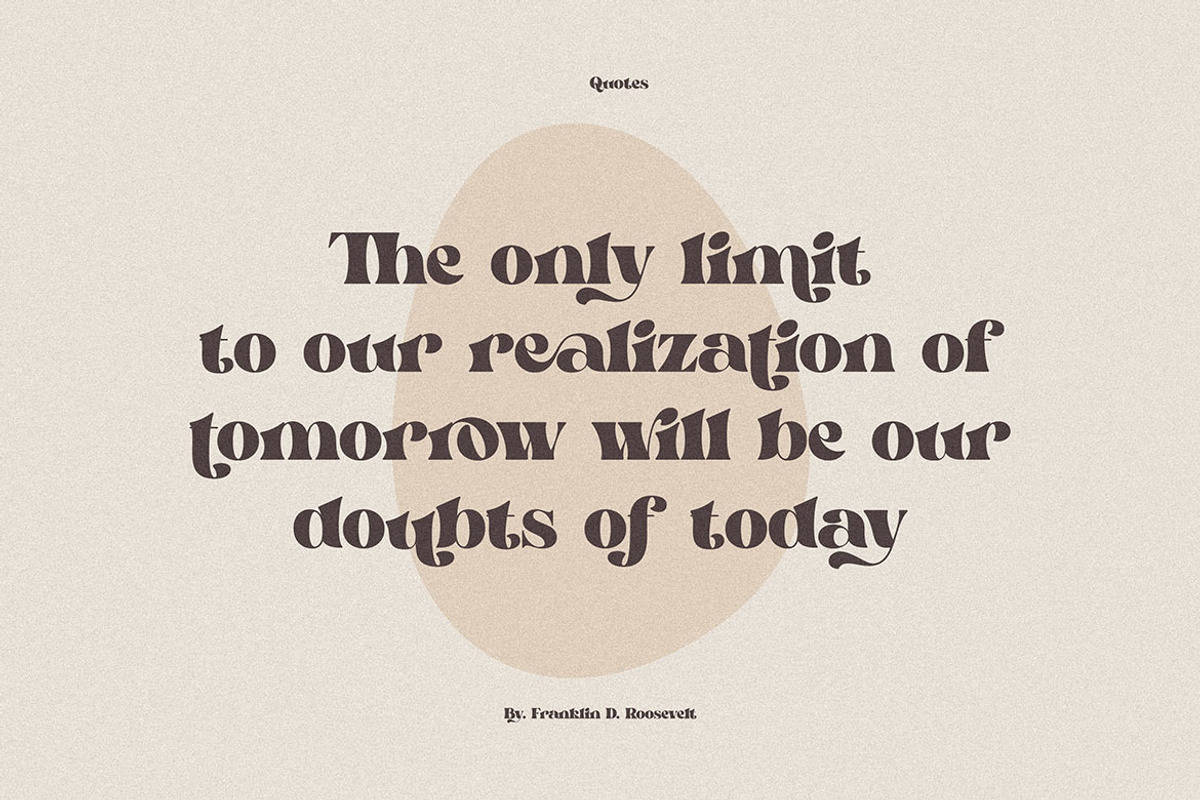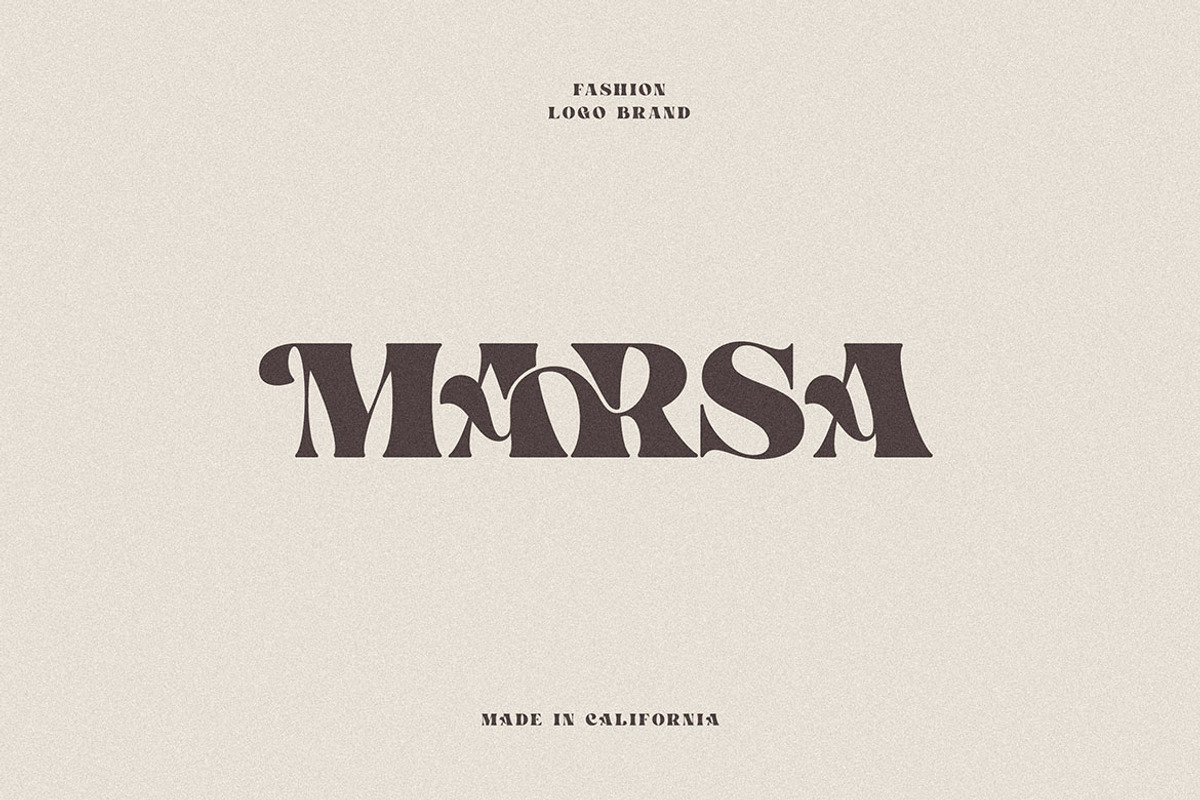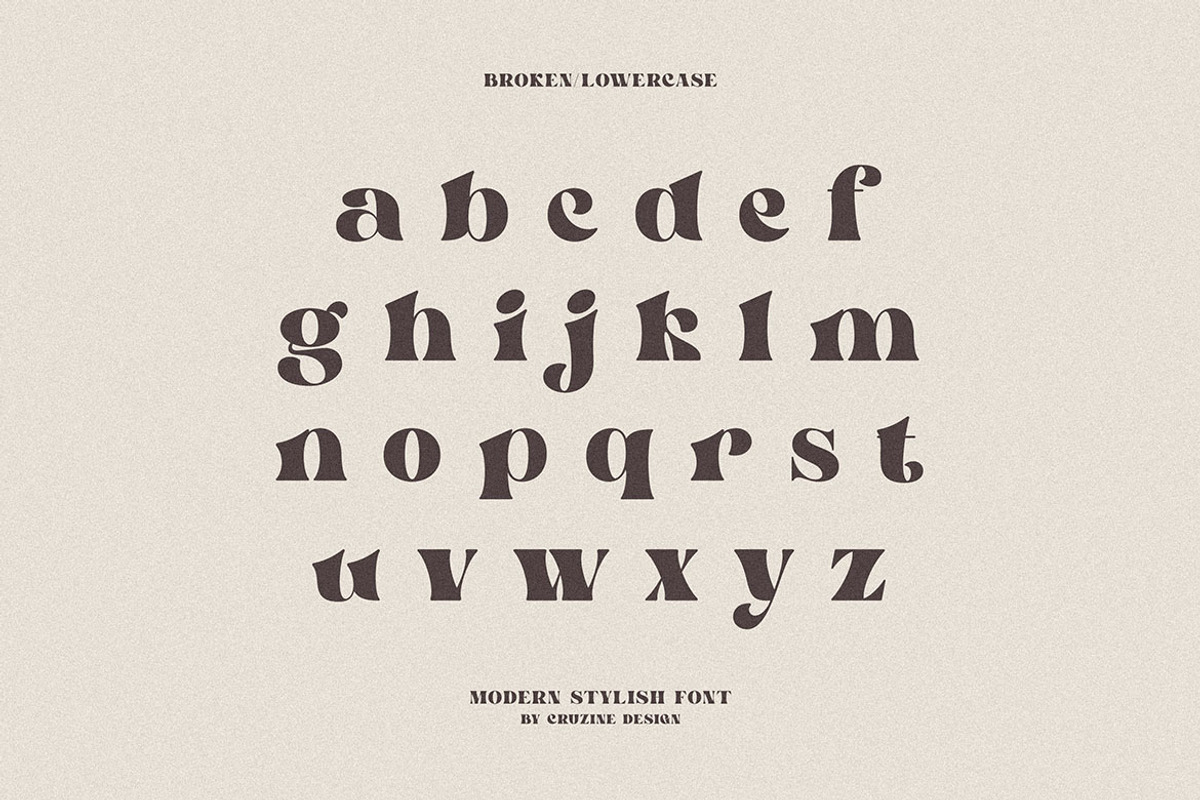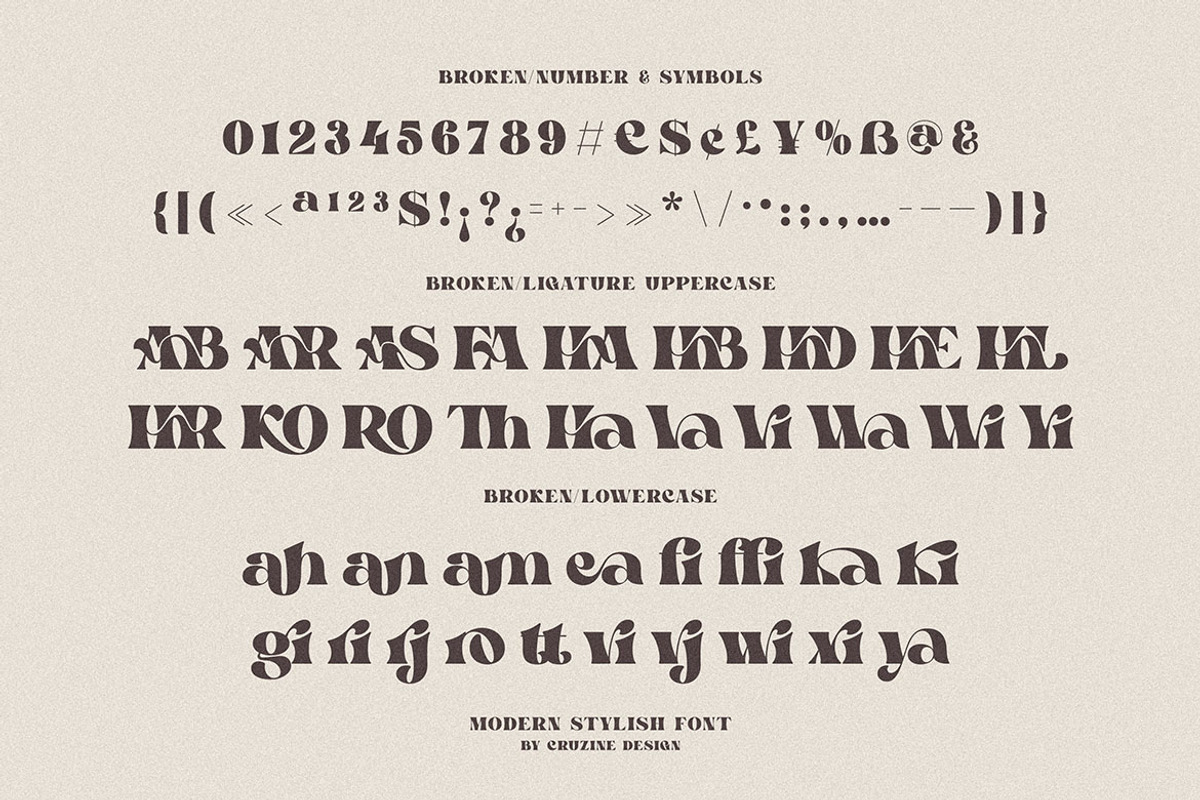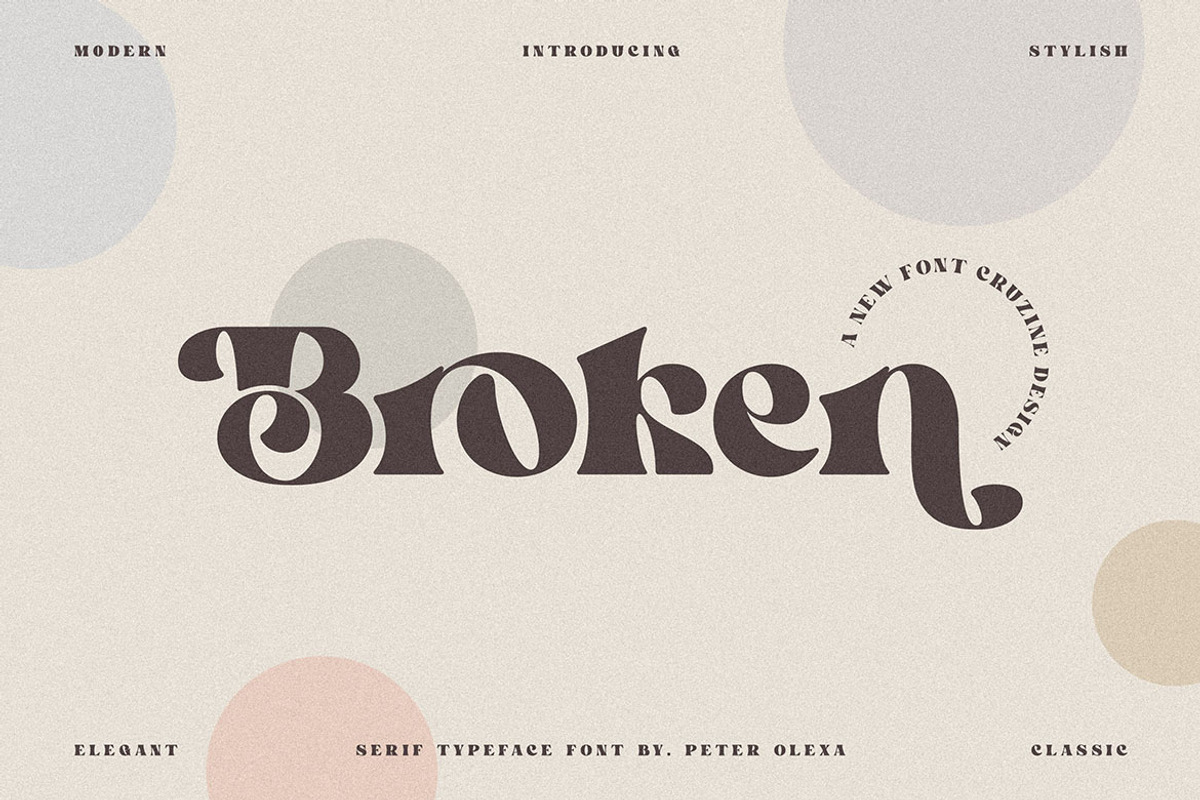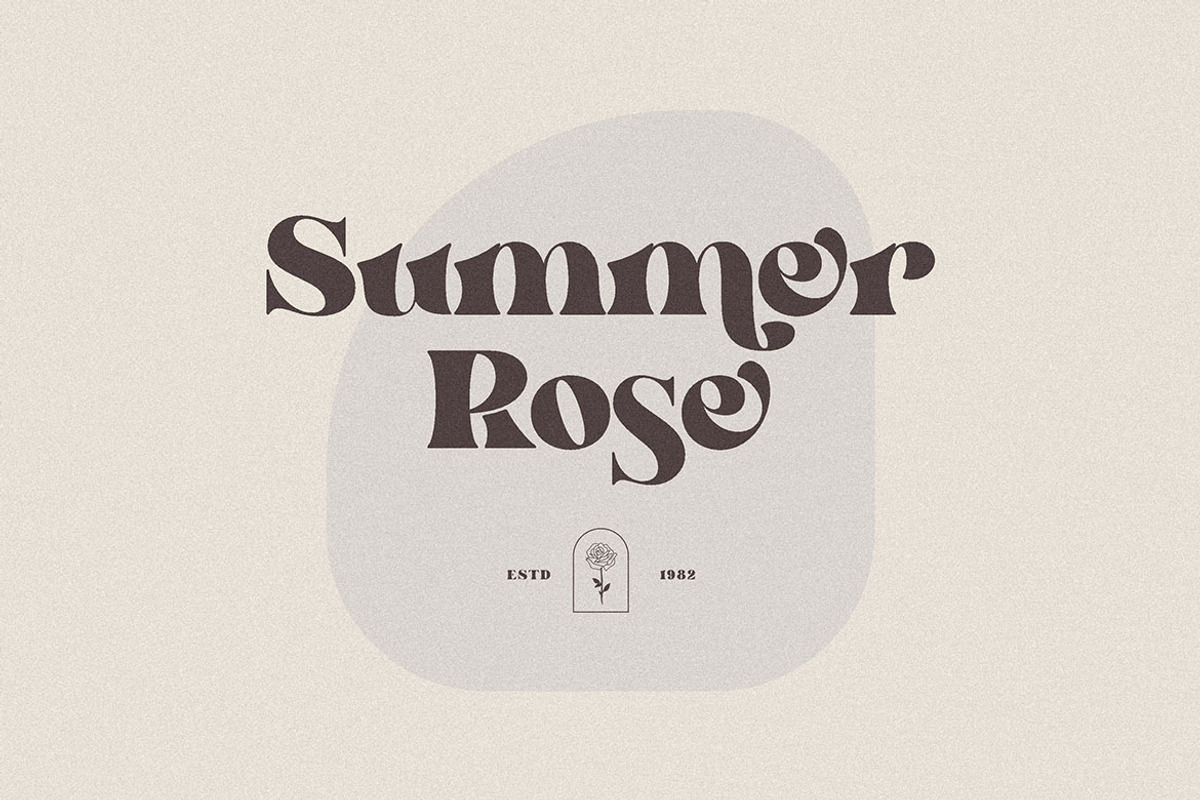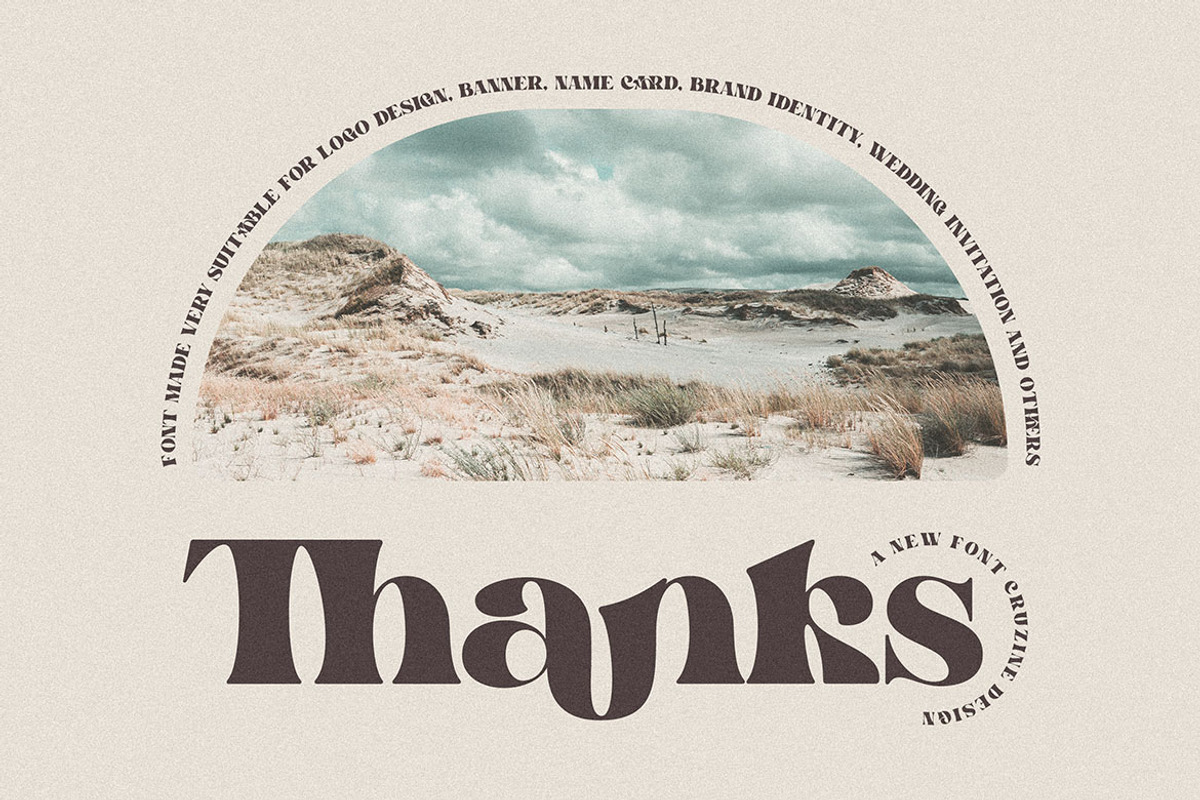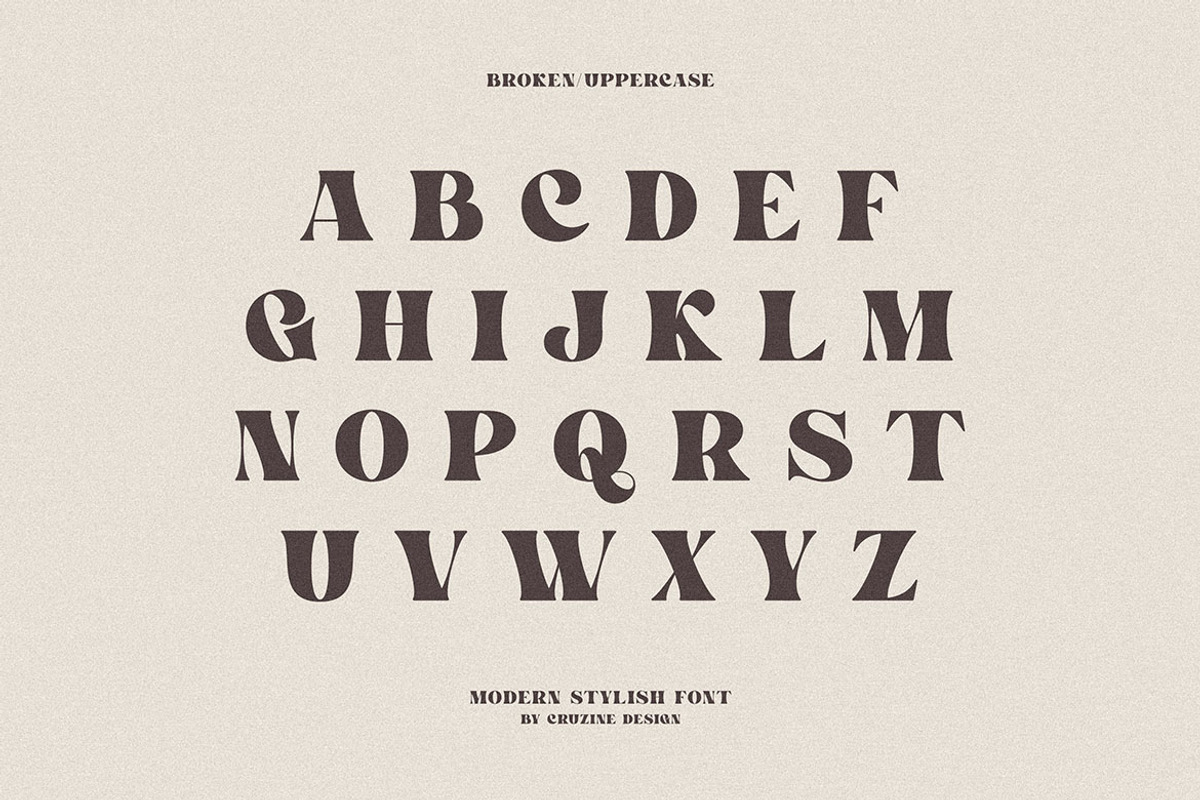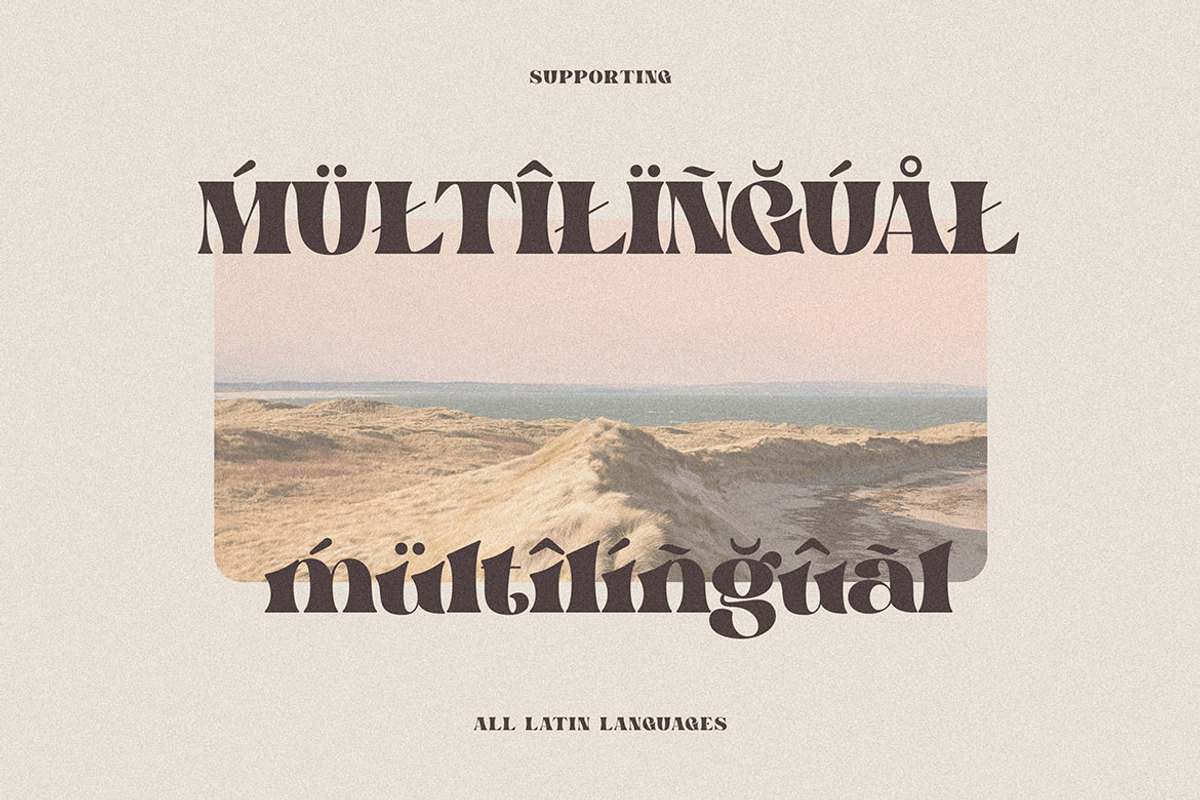
Broken - Bold Serif Font
Trendy, bold & modern style serif font for your fancy projects. Elegant, fashion and classic style on Broken font will be great for any branding project. Lot of alternates and ligatures will help you to create unique and original logo design or website header! Enjoy :)
- Lot of alternate characters
- Lot of ligatures
- Great for modern branding projects!